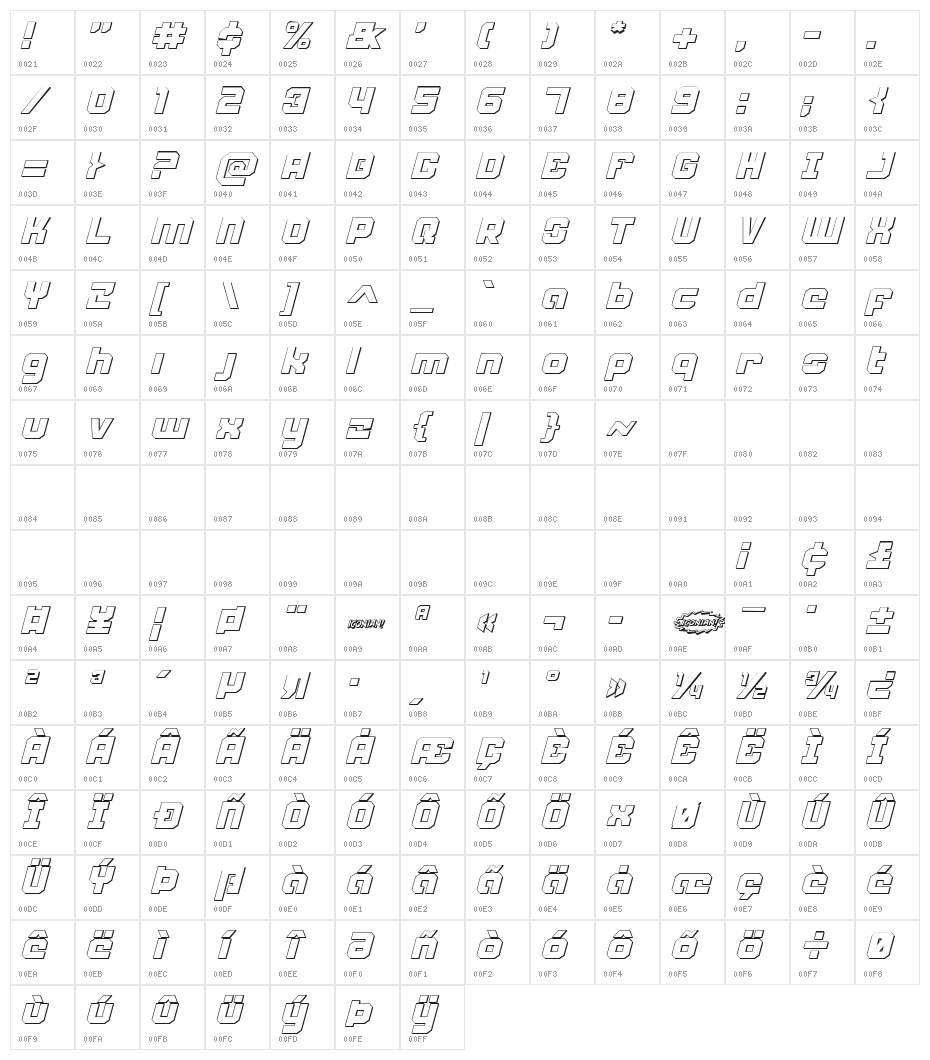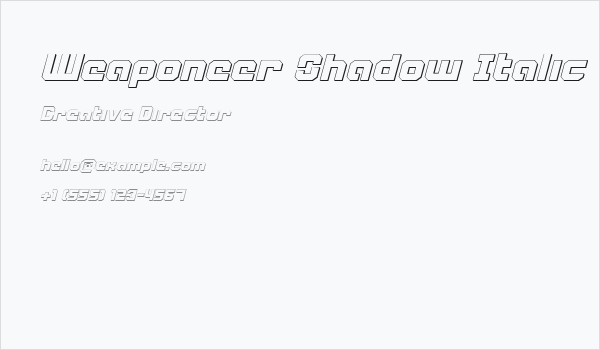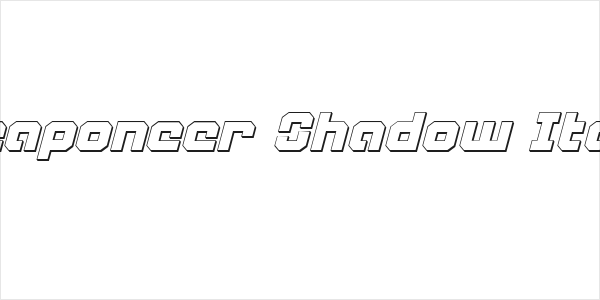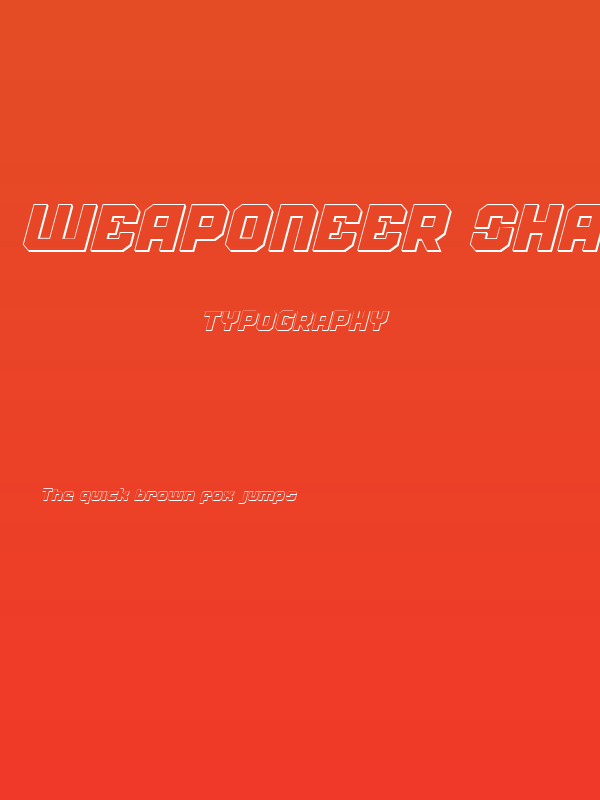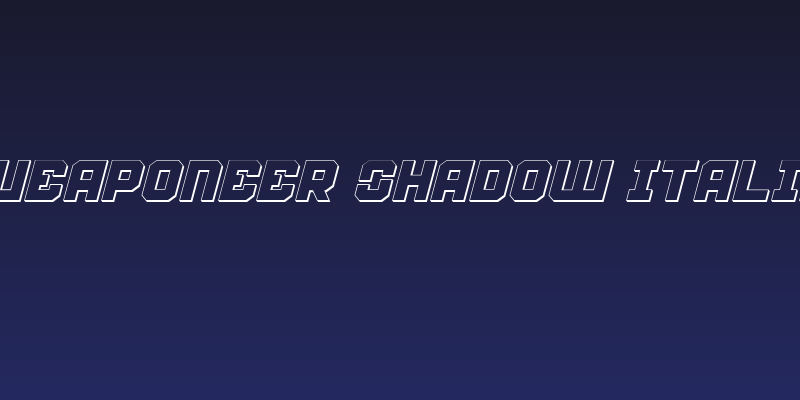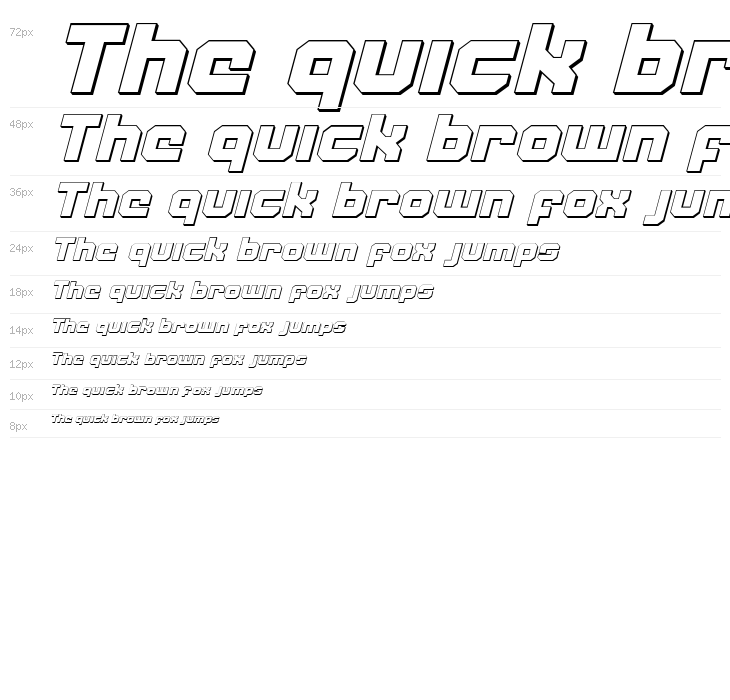
Weaponeer Shadow Italic Font
Weaponeer Shadow Italic Description
This font features a bold, geometric design with a shadow effect that gives it a three-dimensional appearance. The characters are angular and have a futuristic, tech-inspired look. The italic slant adds a dynamic and forward-moving feel, making it stand out in any design. The uppercase and lowercase letters maintain a consistent style, with sharp edges and a uniform thickness. Numbers and special characters are designed to match the bold and striking aesthetic, ensuring a cohesive look across all text elements.